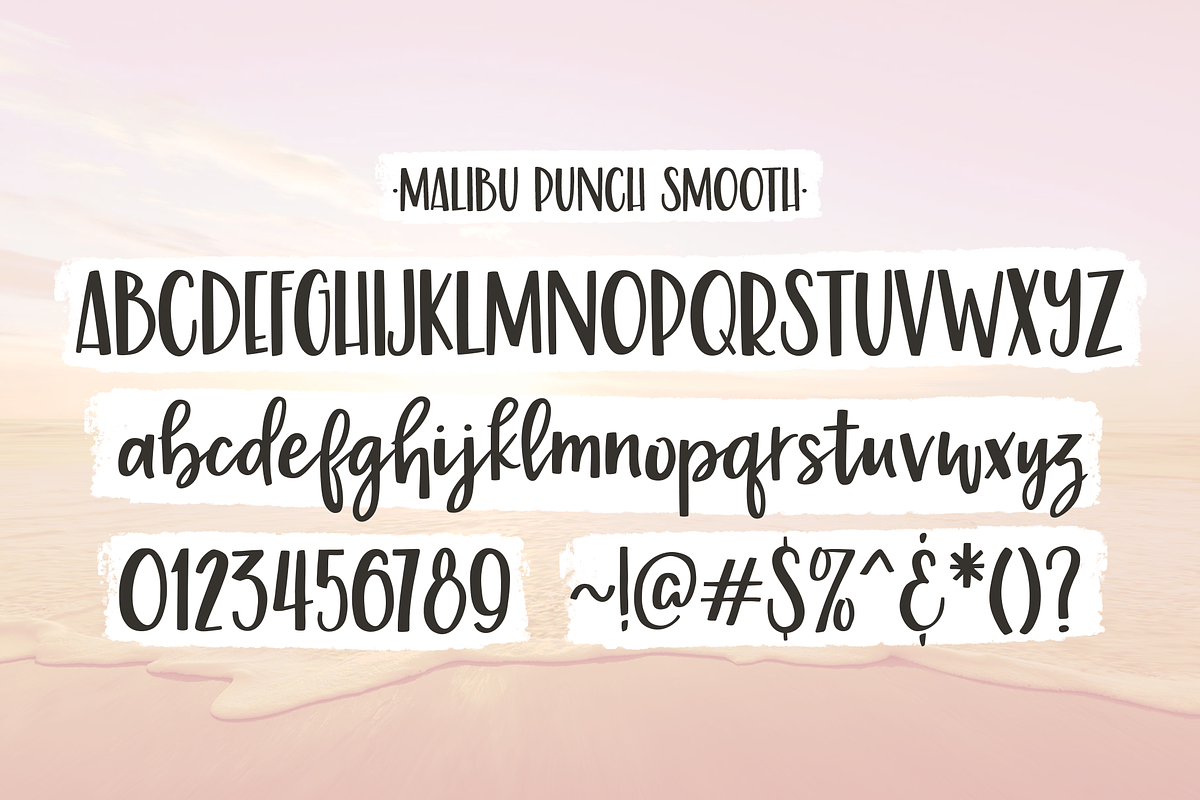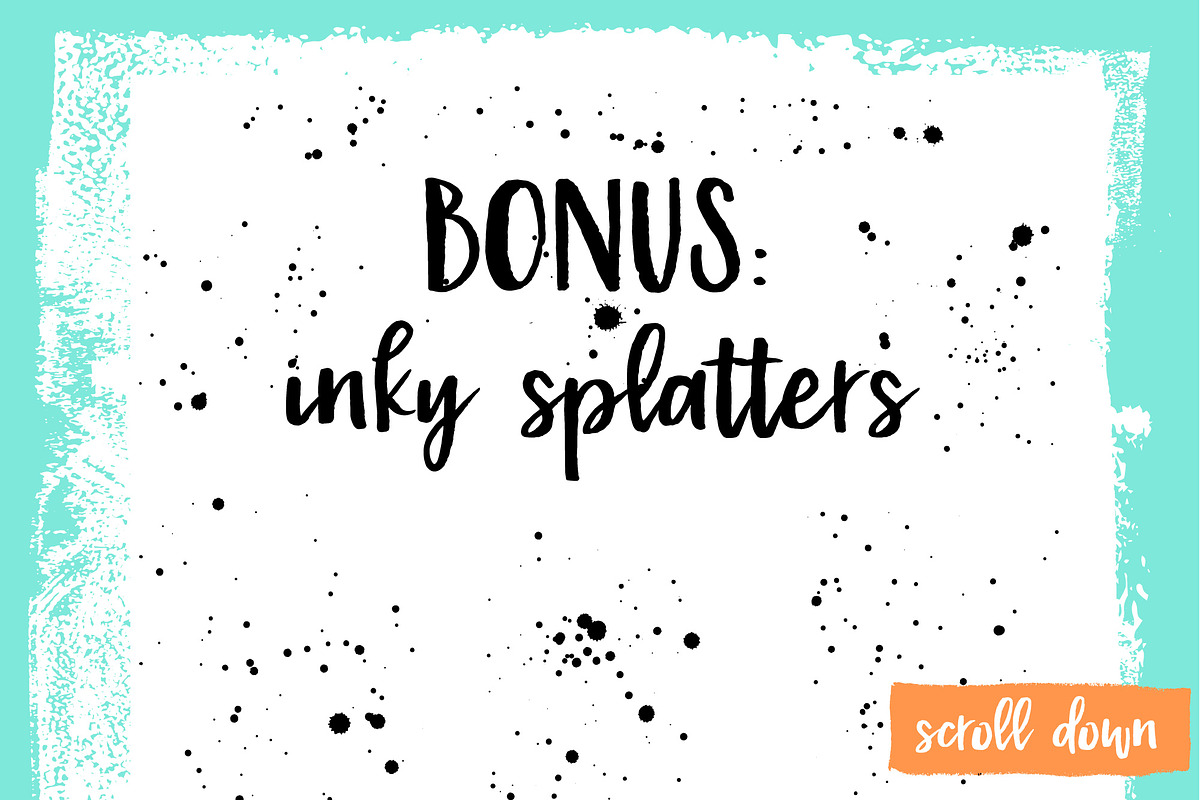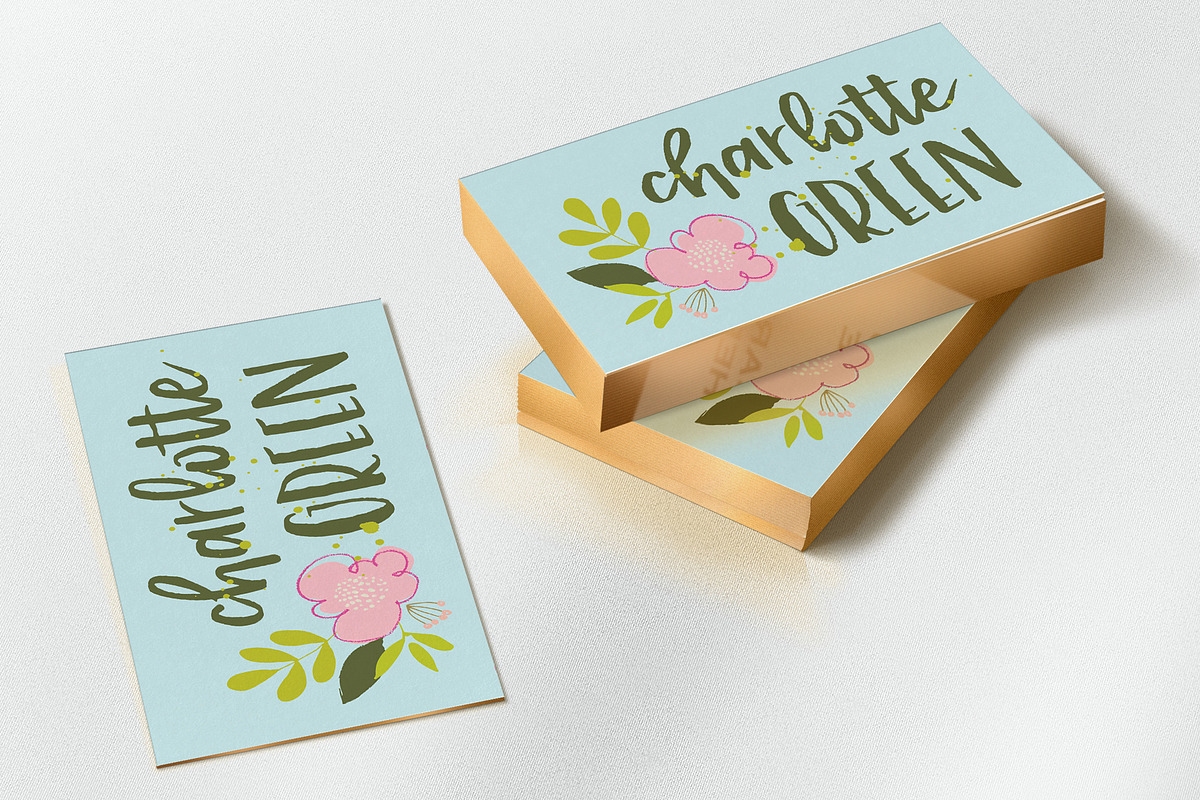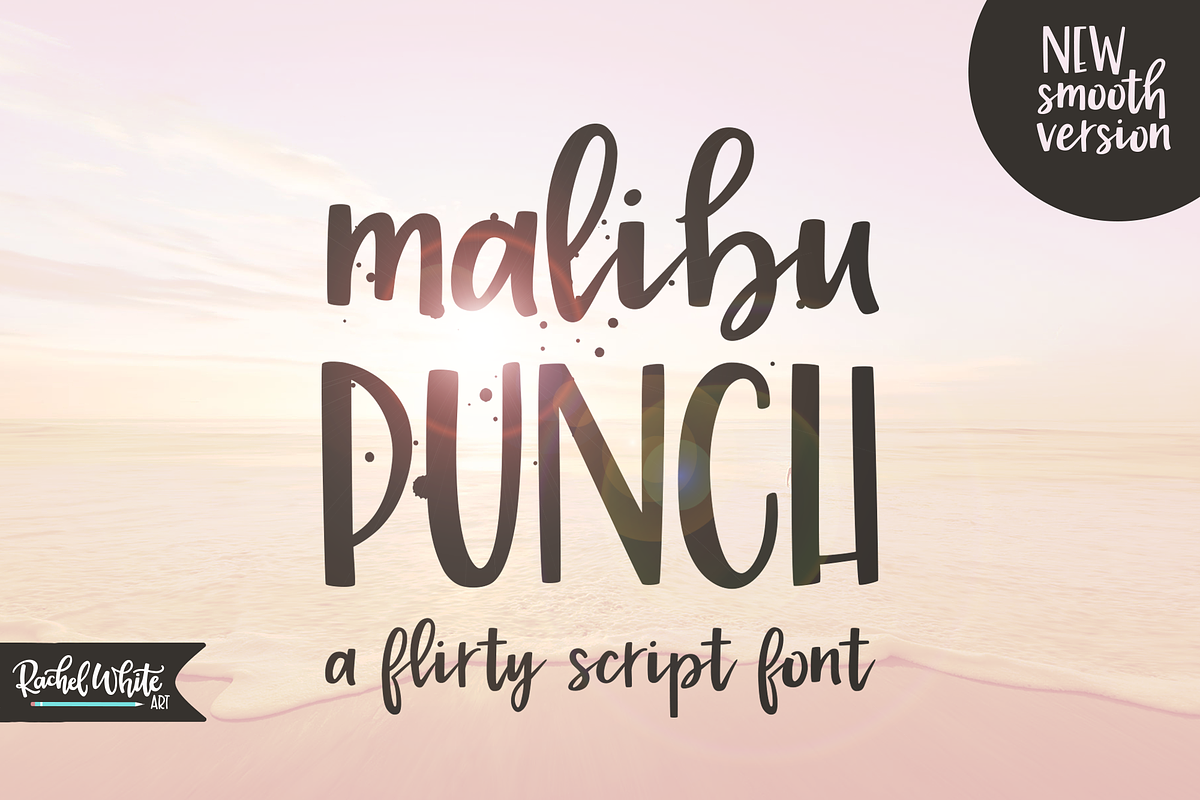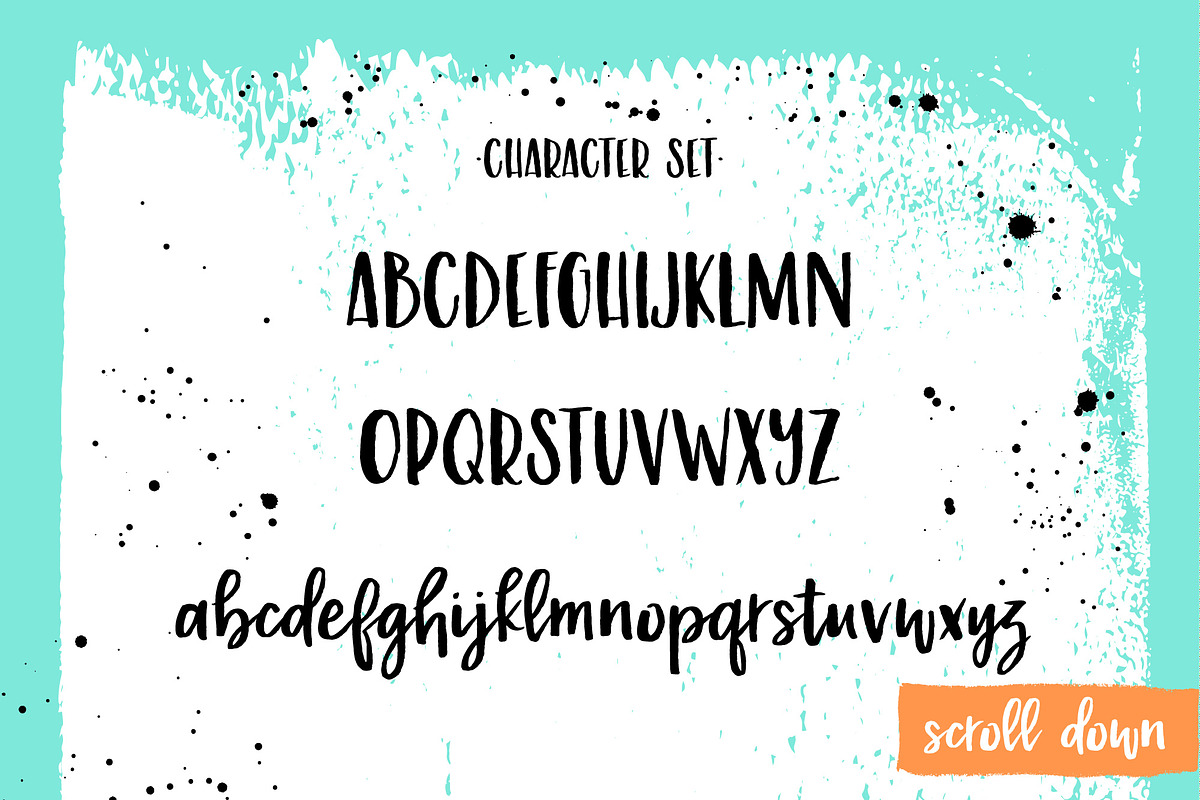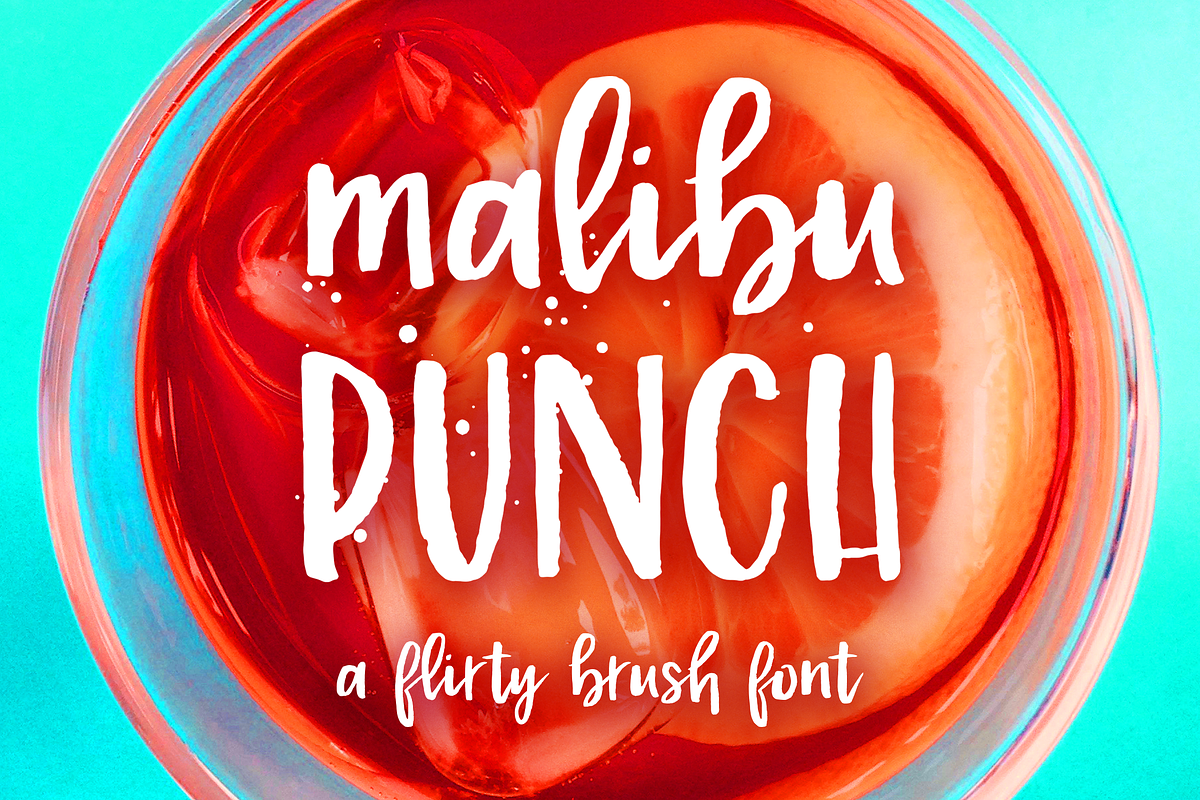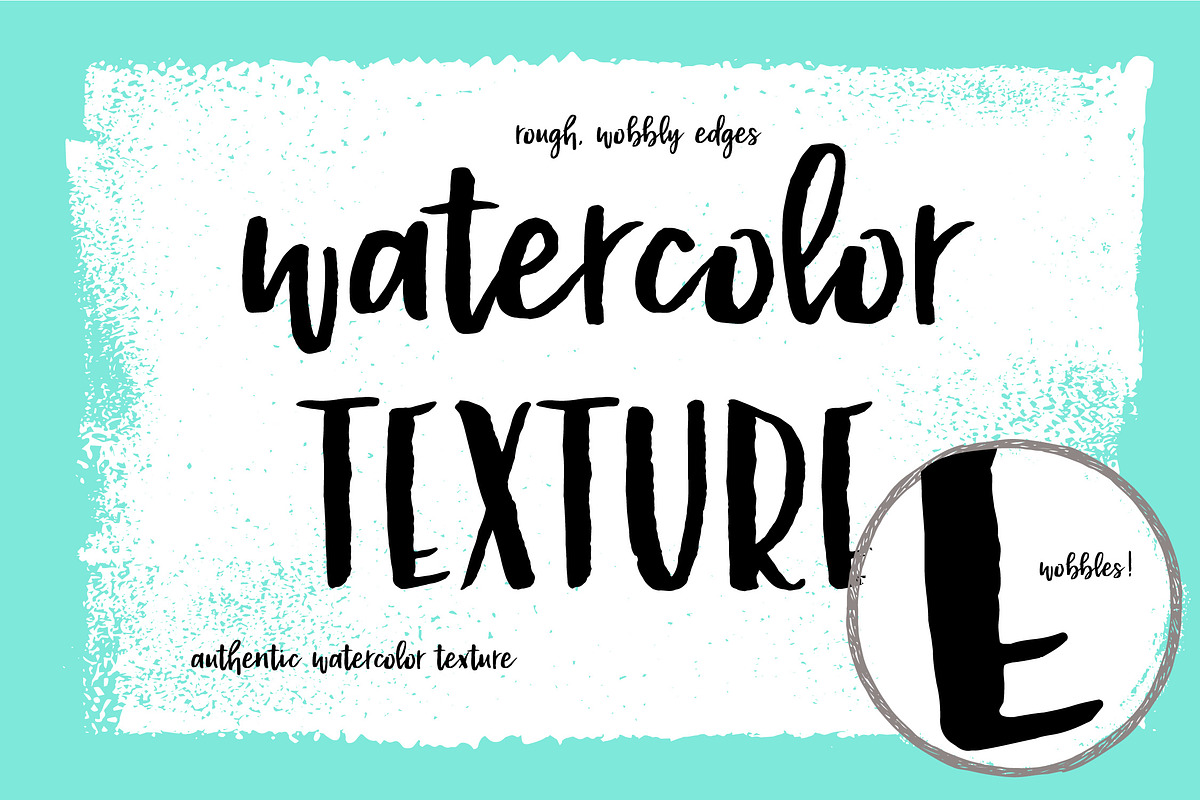
Malibu Punch, a flirty brush font
Malibu Punch, a flirty brush font by Rachel White Art is a font selected for branding, posters, packaging, typography.
- Malibu Punch Rough
- Malibu Punch Smooth
- RWA Malibu Punch Ink Splatters
Why Malibu Punch, a flirty brush font is worth a look
Malibu Punch, a flirty brush font by Rachel White Art fits naturally into Branding, posters, packaging, typography.